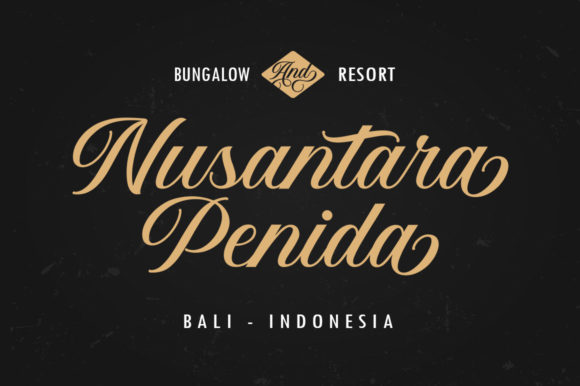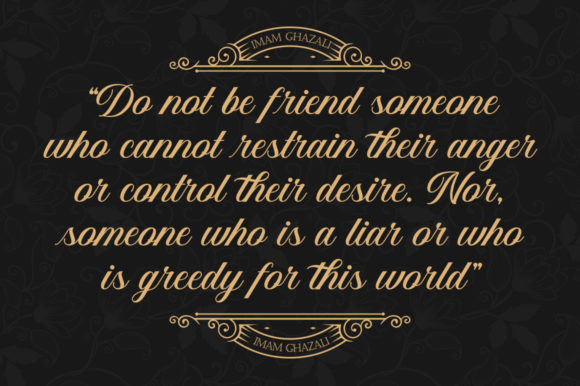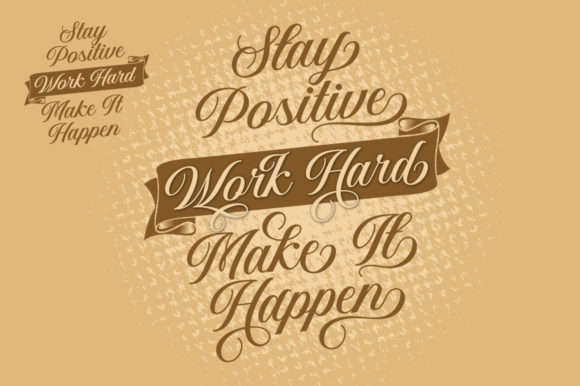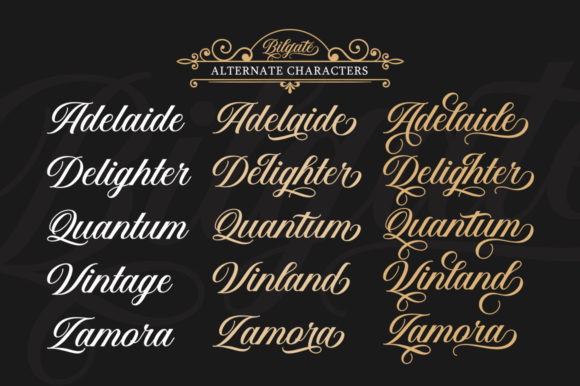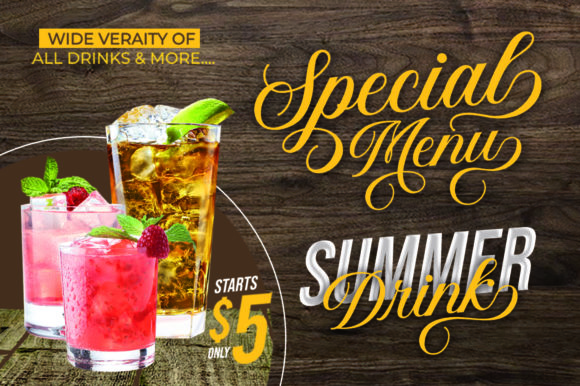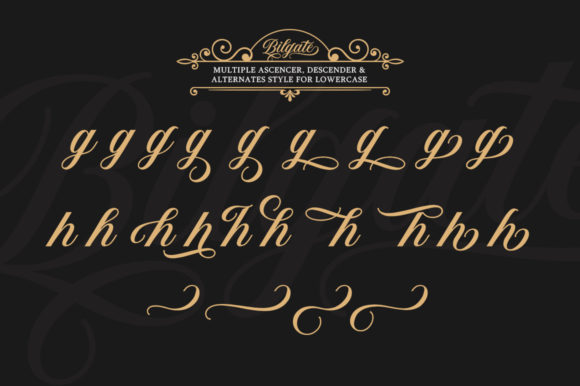
Bilgate Font: Elevate Your Designs with Elegance and Magic
In the world of typography, fonts play a crucial role in conveying the tone and personality of a design. For crafters, designers, and creative enthusiasts, finding the perfect font can be a game-changer. If you’re on the hunt for a font that exudes elegance, sophistication, and a touch of magic, look no further than Bilgate Font. In this article, we’ll dive into the enchanting world of Bilgate, exploring its features, benefits, and uses.
What is Bilgate Font?
Bilgate is a meticulously crafted handwritten font, infused with a dash of elegance and whimsy. This beautiful font is designed to add a touch of sophistication to any design project, making it perfect for creatives seeking to elevate their work. With its flowing lines, intricate details, and artistic flair, Bilgate Font is sure to captivate audiences and leave a lasting impression.
The Power of PUA Encoding
One of the standout features of Bilgate Font is its PUA (Private Use Area) encoding. This means that the font is embedded with a range of glyphs and swashes, easily accessible at your fingertips. PUA encoding allows designers to tap into a vast library of special characters, enabling them to add an extra layer of creativity and flair to their work. With Bilgate Font, you can effortlessly access these amazing glyphs and swashes, taking your designs to new heights.
Features and Benefits of Bilgate Font
So, what makes Bilgate Font so special? Here are just a few of its key features and benefits:
- Elegant and refined design: Bilgate Font boasts a sophisticated, handwritten aesthetic that’s perfect for a range of design applications.
- PUA encoded for easy access: With PUA encoding, you can easily access the font’s extensive library of glyphs and swashes.
- Versatile and adaptable: Bilgate Font is suitable for a wide range of projects, from branding and packaging to invitations and digital graphics.
- High-quality and legible: The font is designed to be clear and legible, ensuring that your message is conveyed with clarity and impact.
Who Can Benefit from Bilgate Font?
Bilgate Font is a versatile and valuable resource for a range of creatives, including:
- Graphic designers: Looking for a unique and elegant font to elevate their branding, packaging, and advertising projects.
- Crafters and DIY enthusiasts: Seeking a beautiful and distinctive font for their handmade crafts, invitations, and stationery.
- Digital artists and illustrators: Wanting to add a touch of whimsy and sophistication to their digital art and illustrations.
- Marketing and branding professionals: Searching for a font that can help them establish a strong and memorable brand identity.
Tips and Inspiration for Using Bilgate Font
To get the most out of Bilgate Font, here are a few tips and inspiration ideas:
- Experiment with different sizes and colors: Play around with various font sizes and colors to create visual interest and hierarchy.
- Mix and match with other fonts: Combine Bilgate Font with other complementary fonts to create a unique and eye-catching typography.
- Use glyphs and swashes to add flair: Take advantage of the font’s PUA encoding to add decorative touches and personality to your designs.
- Try it out in different design applications: Use Bilgate Font in a range of design contexts, from print materials to digital graphics, to see its versatility in action.
| Font Name | Bilgate Font |
| Author | Lettersams |
In conclusion, Bilgate Font is a truly magical handwritten font that offers a perfect blend of elegance, sophistication, and creativity. With its PUA encoding, elegant design, and versatility, it’s an excellent choice for designers, crafters, and creative enthusiasts looking to elevate their work. Whether you’re working on a branding project, crafting handmade invitations, or creating digital art, Bilgate Font is sure to inspire and delight. So why wait? Discover the magic of Bilgate Font today and take your designs to new heights!